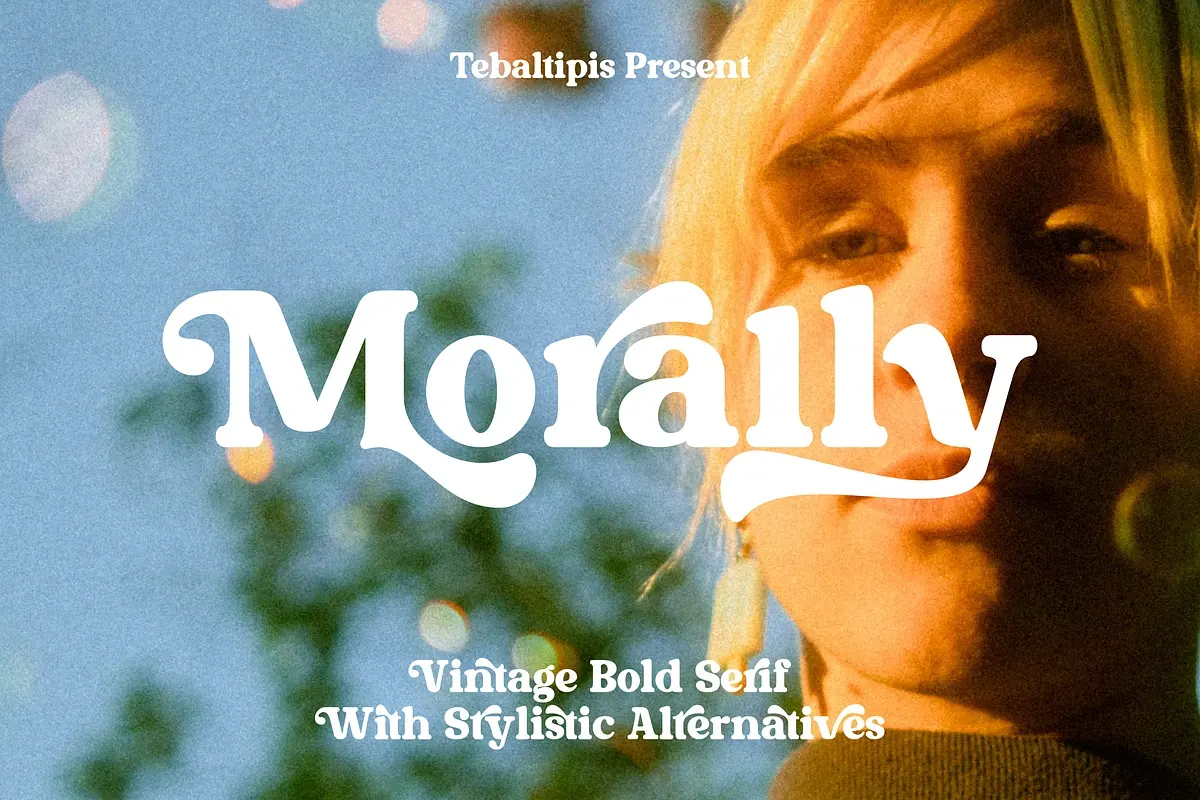
Morally is a vintage-inspired bold serif font that seamlessly blends modern aesthetics with a retro flair. Designed by Tebaltipis Studio, Morally offers a distinctive character suitable for a variety of design applications.
• Design Style: Morally features a bold serif structure with a vintage touch, making it ideal for projects that require a classic yet contemporary look.
• Alternates and Ligatures: The font includes alternative characters and ligatures, providing designers with creative flexibility to craft unique typographic compositions.
• Versatile Applications: Morally is well-suited for creating stunning logos, quotes, blog posts, branding projects, magazine imagery, wedding invitations, and more.